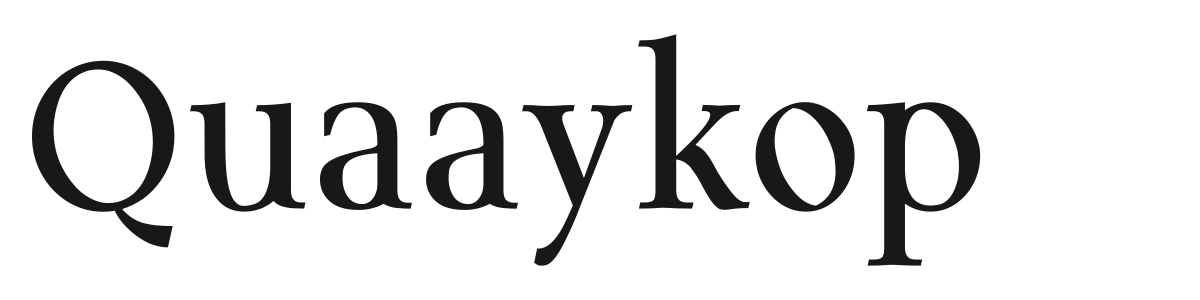
Quaaykop
Quaaykop is a transitional serif drawn from memory by Tup Wanders during a heatwave, aiming for deliberate, principled boringness. The high stroke contrast and bracketed serifs place it squarely in the tradition of 18th-century book types, though a few quietly eccentric details remind you a human made it. It covers the ground a workhorse serif needs to cover, with just enough personality to stay interesting.